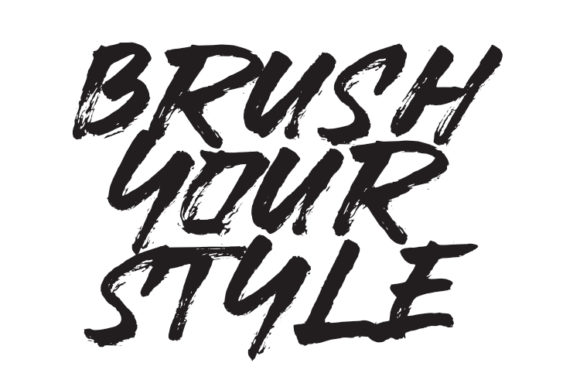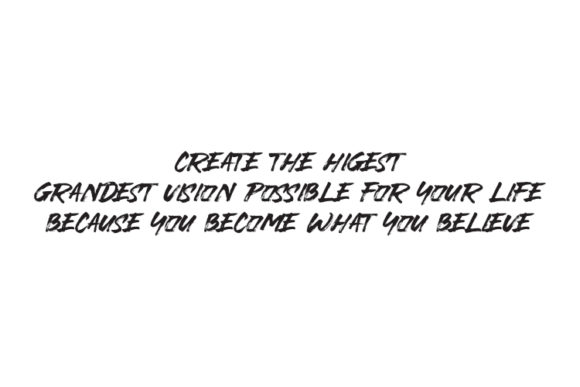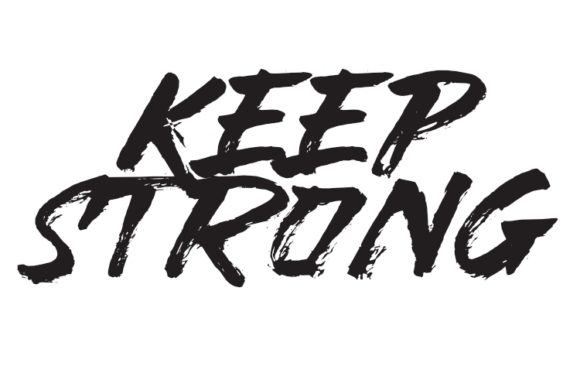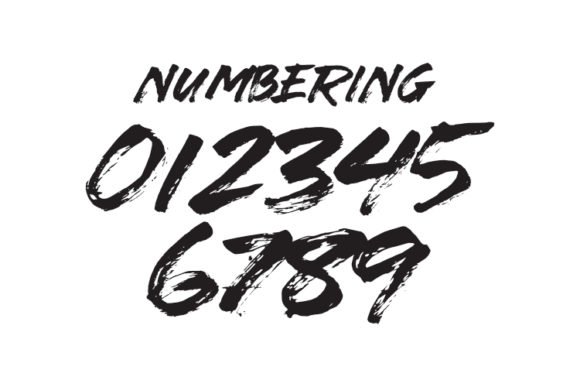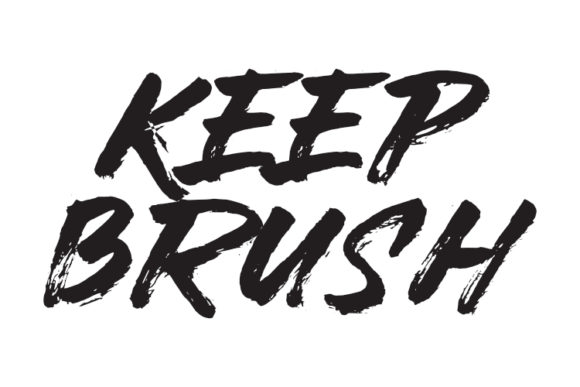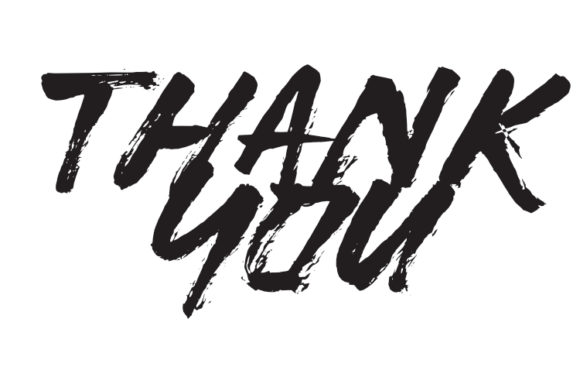
Unleash Your Creativity with Hardbrush Font: A Wild and Expressive Display Font
Are you tired of using the same old fonts in your designs? Do you want to add a touch of raw energy and creativity to your projects? Look no further than the Hardbrush font, a display font that is sure to make your designs stand out from the crowd. With its unique, hand-crafted aesthetic and untamed energy, Hardbrush is the perfect choice for designers and crafters looking to add a bit of wildness to their work.
What is Hardbrush Font?
Hardbrush font is a display font that features raw, expressive brushstrokes and a rugged, hand-crafted aesthetic. This font is perfect for designers who want to add a touch of personality and whimsy to their designs, whether it’s for a logo, a poster, or a social media graphic. With its bold, eye-catching strokes and unpredictable texture, Hardbrush font is sure to grab attention and leave a lasting impression.
Key Features of Hardbrush Font
- Raw Brushstrokes: Hardbrush font features authentic, hand-crafted brushstrokes that give it a unique, organic feel.
- Untamed Energy: This font has a wild, untamed energy that is perfect for designers who want to add a bit of edge to their designs.
- Highly Versatile: Hardbrush font can be used across a wide range of designs, from logos and posters to social media graphics and more.
- Easy to Read: Despite its bold, expressive strokes, Hardbrush font is surprisingly easy to read, making it perfect for headlines and titles.
Who is Hardbrush Font for?
Hardbrush font is perfect for designers and crafters who want to add a touch of personality and whimsy to their designs. This font is ideal for:
- Graphic Designers: Whether you’re working on a logo, a poster, or a social media graphic, Hardbrush font is a great choice for adding a bit of edge to your designs.
- Crafters: If you’re a crafter who loves to make handmade cards, gift tags, and other paper crafts, Hardbrush font is a great choice for adding a personal touch to your projects.
- Artists: If you’re an artist who wants to add a bit of texture and personality to your artwork, Hardbrush font is a great choice for creating unique and eye-catching titles and captions.
How to Use Hardbrush Font
Hardbrush font is easy to use and can be incorporated into your designs in a variety of ways. Here are a few tips for getting the most out of this amazing font:
- Use it as a Headline Font: Hardbrush font is perfect for headlines and titles, where its bold, expressive strokes can really make an impact.
- Pair it with Other Fonts: Hardbrush font pairs well with a variety of other fonts, including clean sans-serif fonts and elegant script fonts.
- Experiment with Colors: Hardbrush font looks great in a variety of colors, from bold and bright to muted and pastel.
In conclusion, Hardbrush font is a true must-have for designers and crafters who want to add a touch of raw energy and creativity to their designs. With its unique, hand-crafted aesthetic and untamed energy, this display font is sure to make your designs stand out from the crowd. Whether you’re a graphic designer, a crafter, or an artist, Hardbrush font is a great choice for adding a bit of personality and whimsy to your projects.